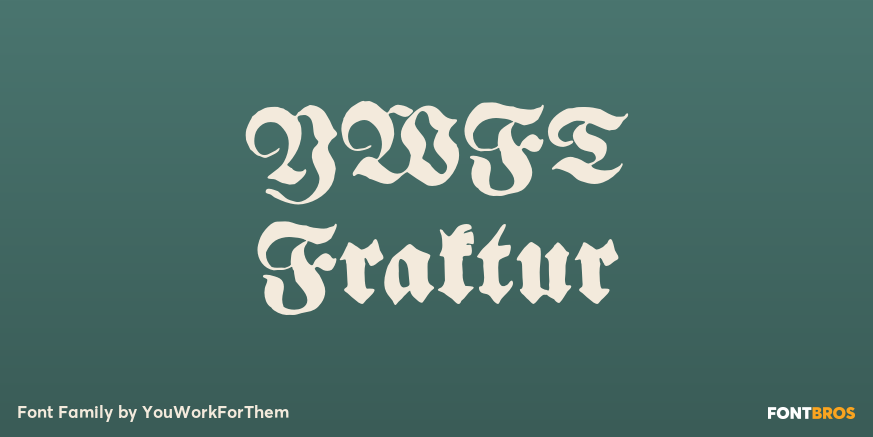
About YWFT Fraktur
Down go the house lights, and with an explosion of fire, the brutal assault of YWFT Fraktur washes over the congregation at sonic pressure levels that rattle teeth and break glass. This is the power of the deadlest elegance this side of Modern Metal Bride…